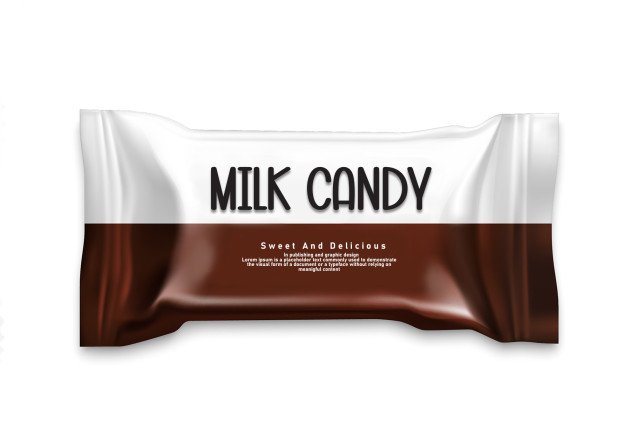
Winter Home Display Font
Winter Home Display Font is a bold display font that has a cozy and inviting look. Its thick letters are easy to read and perfect for winter-themed designs, making your projects feel warm and cheerful!